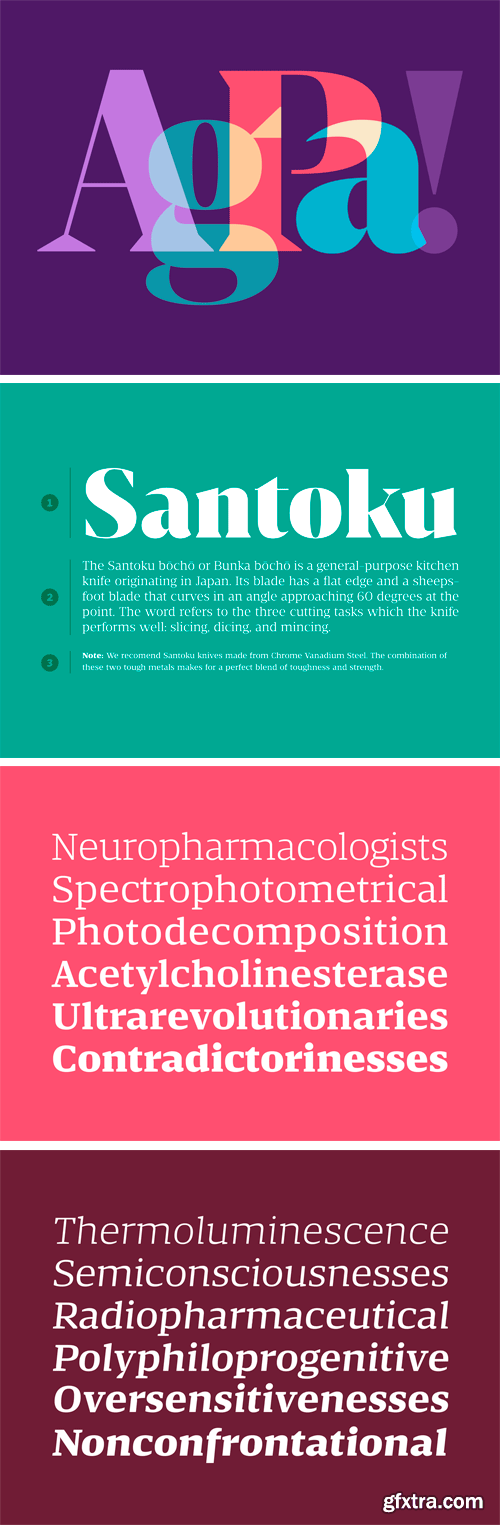
Striver Micro Font Family
The Micro version was equally calibrated for it's size, mainly trough the addition of prominent ink traps, and new proportions. Instead of matching this version with a traditional italic we opted to develop a slanted roman in order to preserve the distinguishing features of some of it's characters, like the double-story a and g.